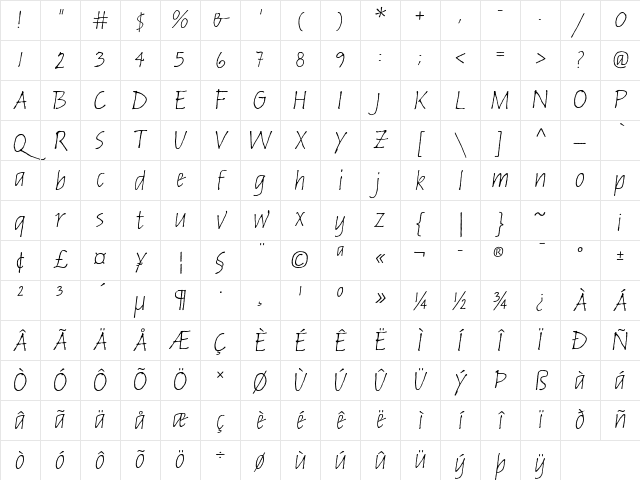
Russell Oblique Std Informal
Style: Informal
Designer: Karen Ackoff
Design Context for Russell Oblique Std
Russell Oblique Std is a composed and adaptable typeface that performs quietly and consistently across a wide range of design contexts. The slanted form adds forward momentum and visual energy.
Pro Tip: Use Russell Oblique Std for emphasis, pull quotes, and subheadings where its slanted energy can add rhythm to the layout.